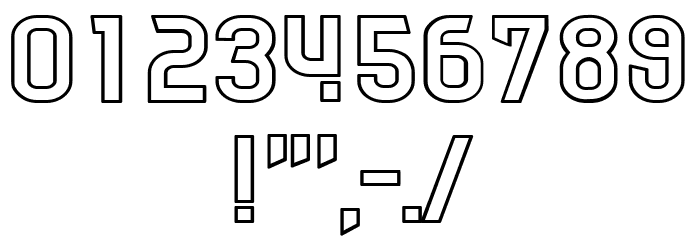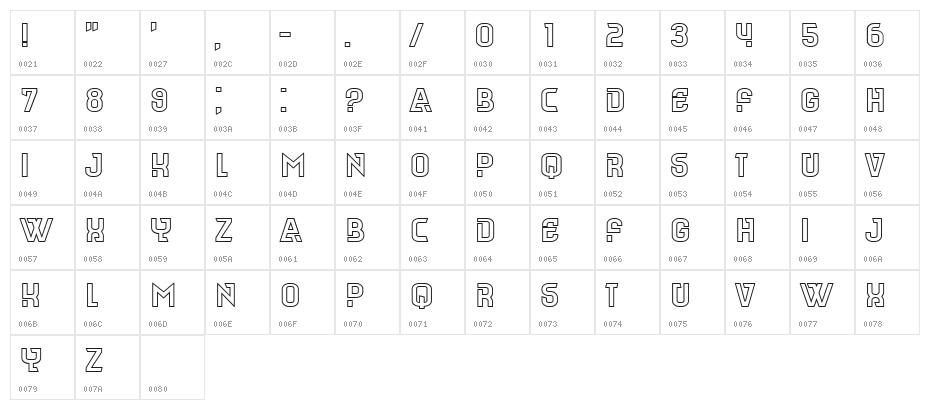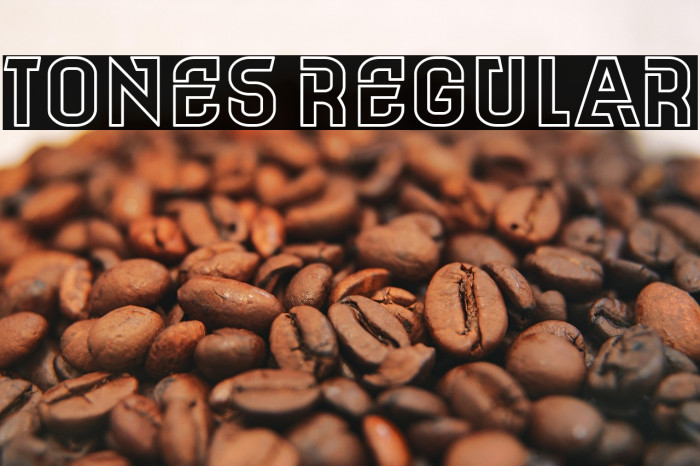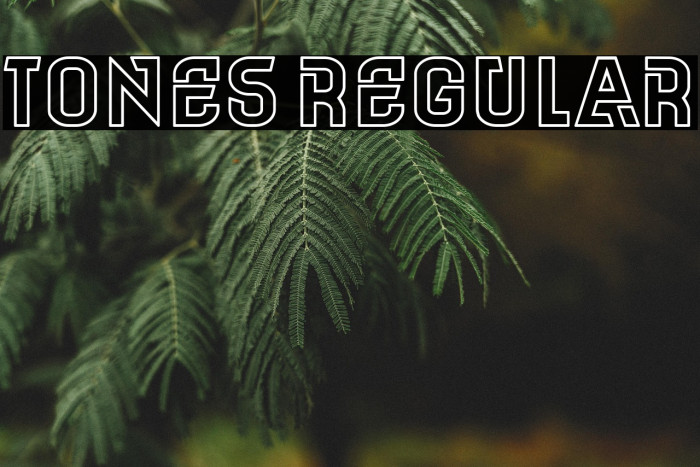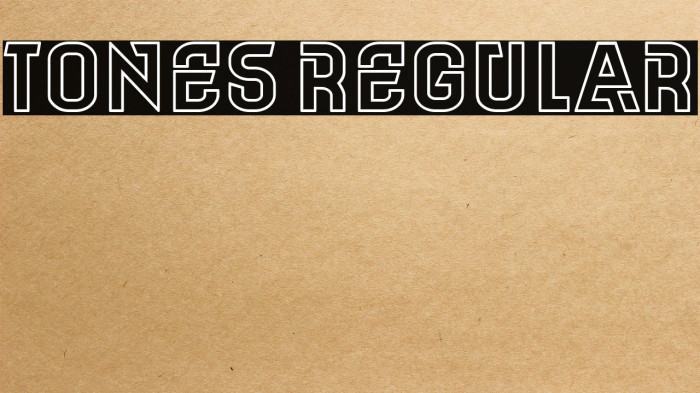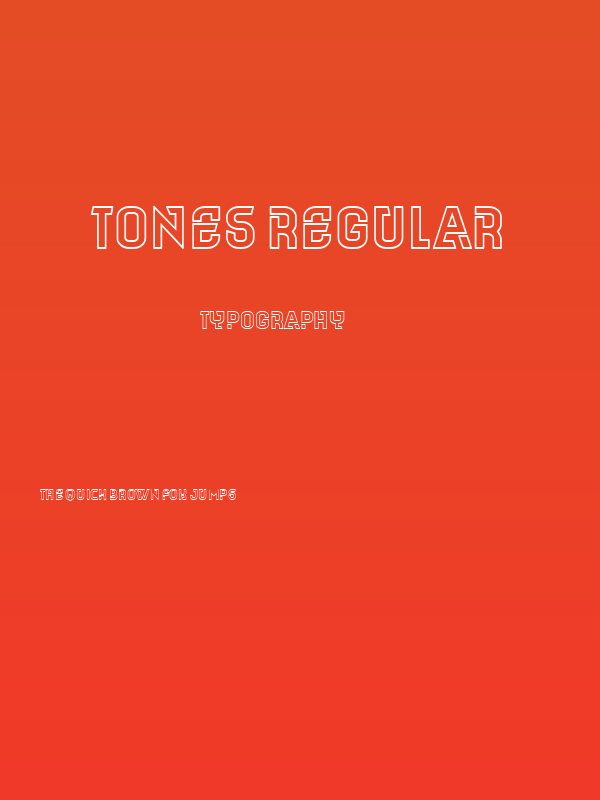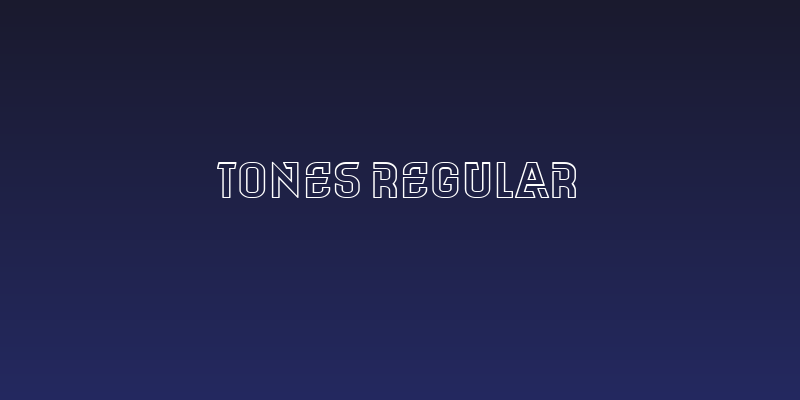
Tones Regular Font
Tones Regular Description
This font features a bold, geometric design with a distinct outline style. Each character is crafted with precision, showcasing a modern and futuristic aesthetic. The uppercase and lowercase letters maintain a consistent structure, while the numerals and special characters complement the overall design. The font's outline nature gives it a unique, eye-catching appearance, making it suitable for projects that require a standout visual element. Its clean lines and uniformity provide a sense of balance and harmony, ideal for creative and contemporary applications.
| Proposed Projects | Ideal for branding, posters, headlines, and digital media where a striking visual impact is desired. |